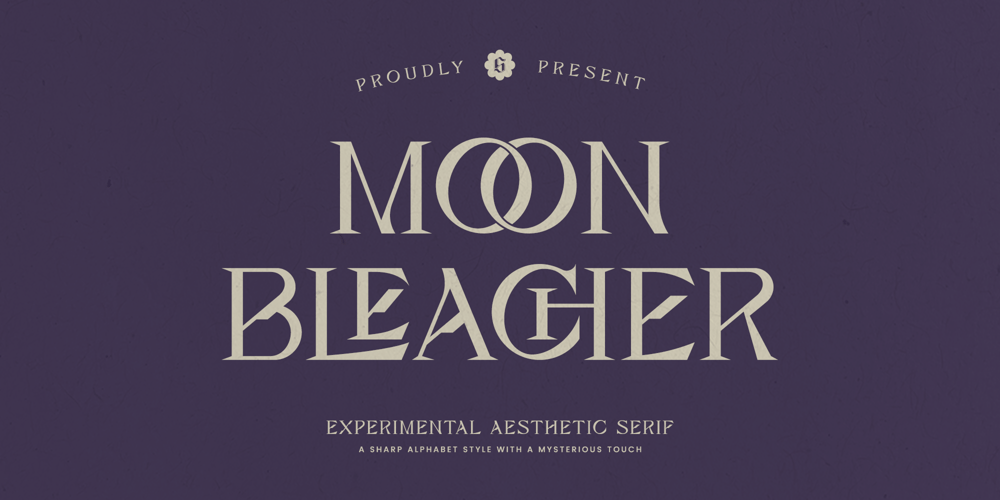
Moon Bleacher Font Family was designed by Guntur Septyan and published by GuseType. Moon Bleacher contains 1 styles and family package options. Moon Bleacher is a display experimental aesthetic serif font that have sharp edge to make it look more elegant and luxury, Moon Bleacher inspired by nuance of mysterious thing, but keep it elegance with contrast line on each character. This font can be use in various project like, posters, magazines, logos, banner, invitations, brochure, album cover design, social media post and many more. Moon Bleacher also has several features including multiple languages support, punctuation marks, symbols, alternative and ligature. Moon Bleacher ready to stylish your beautiful word.